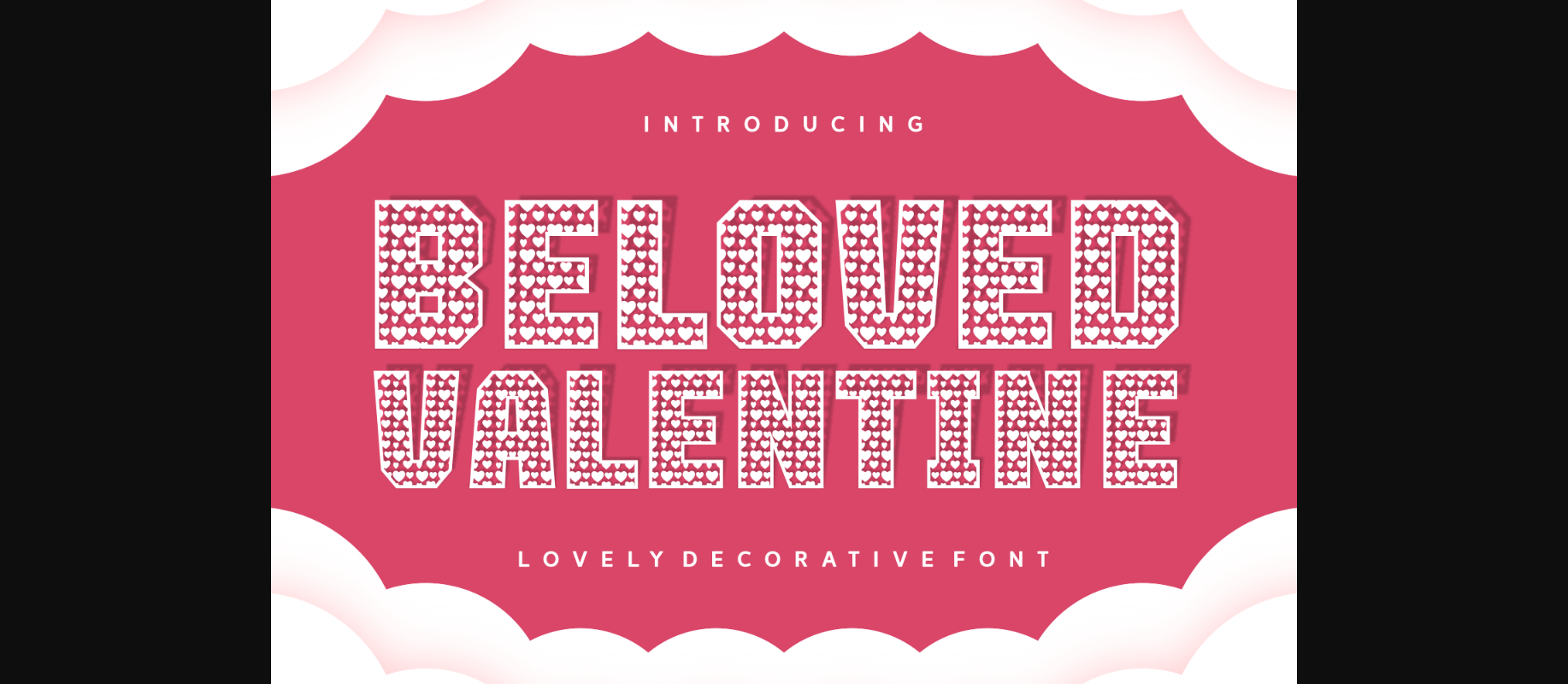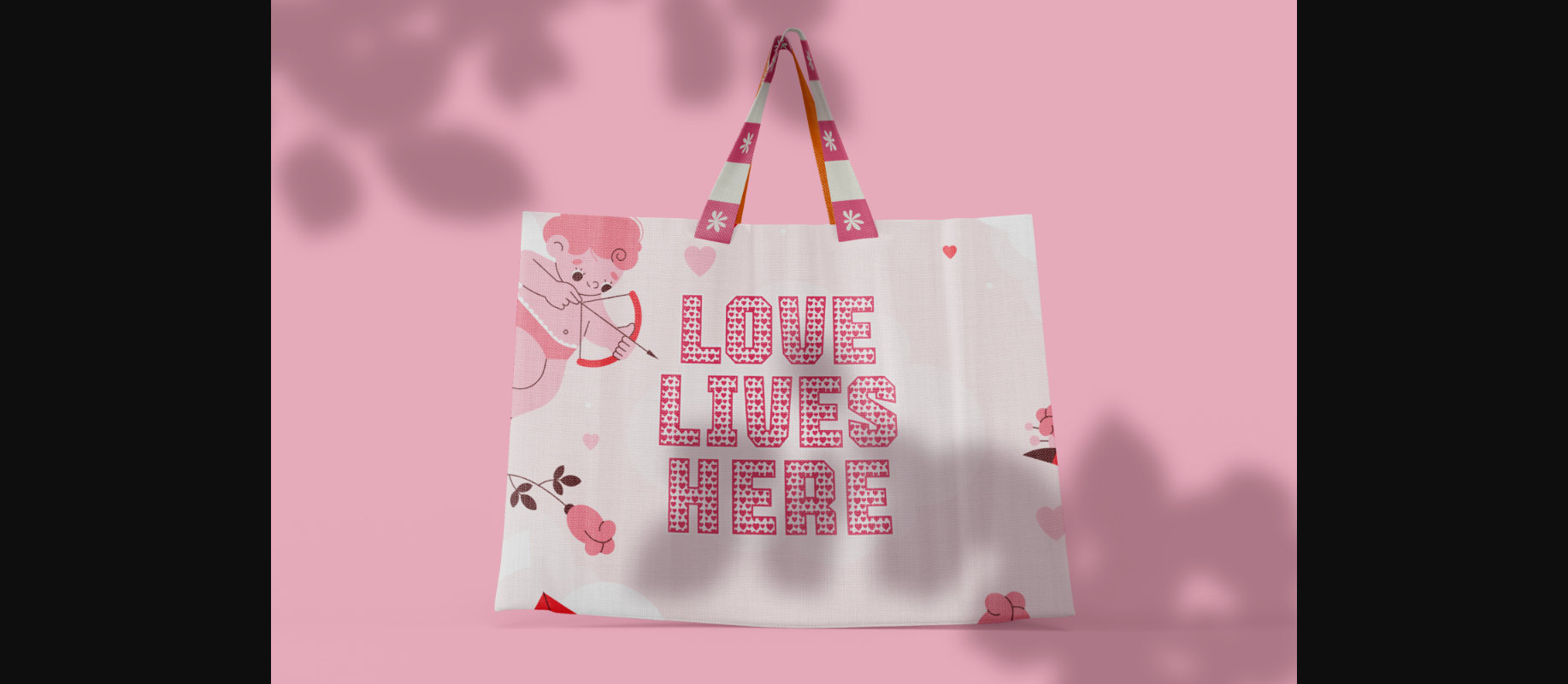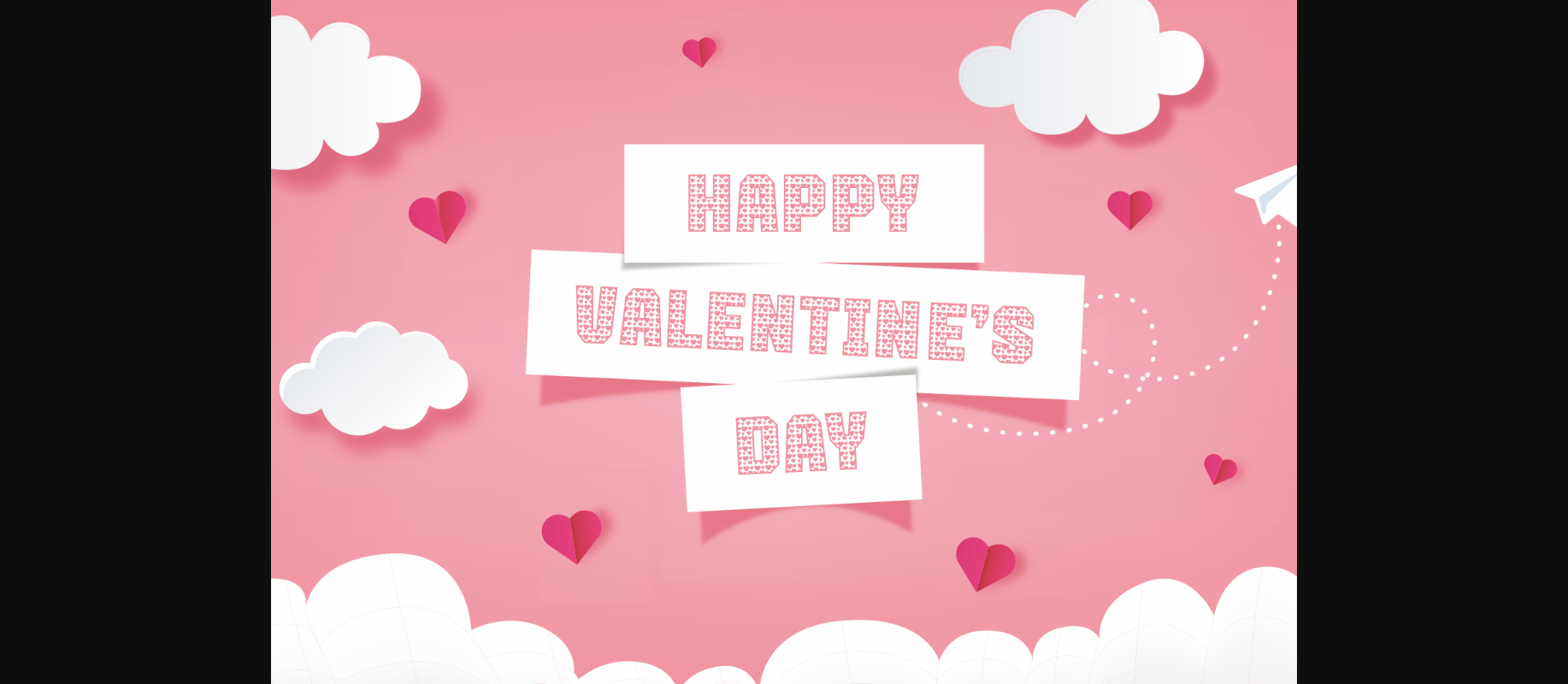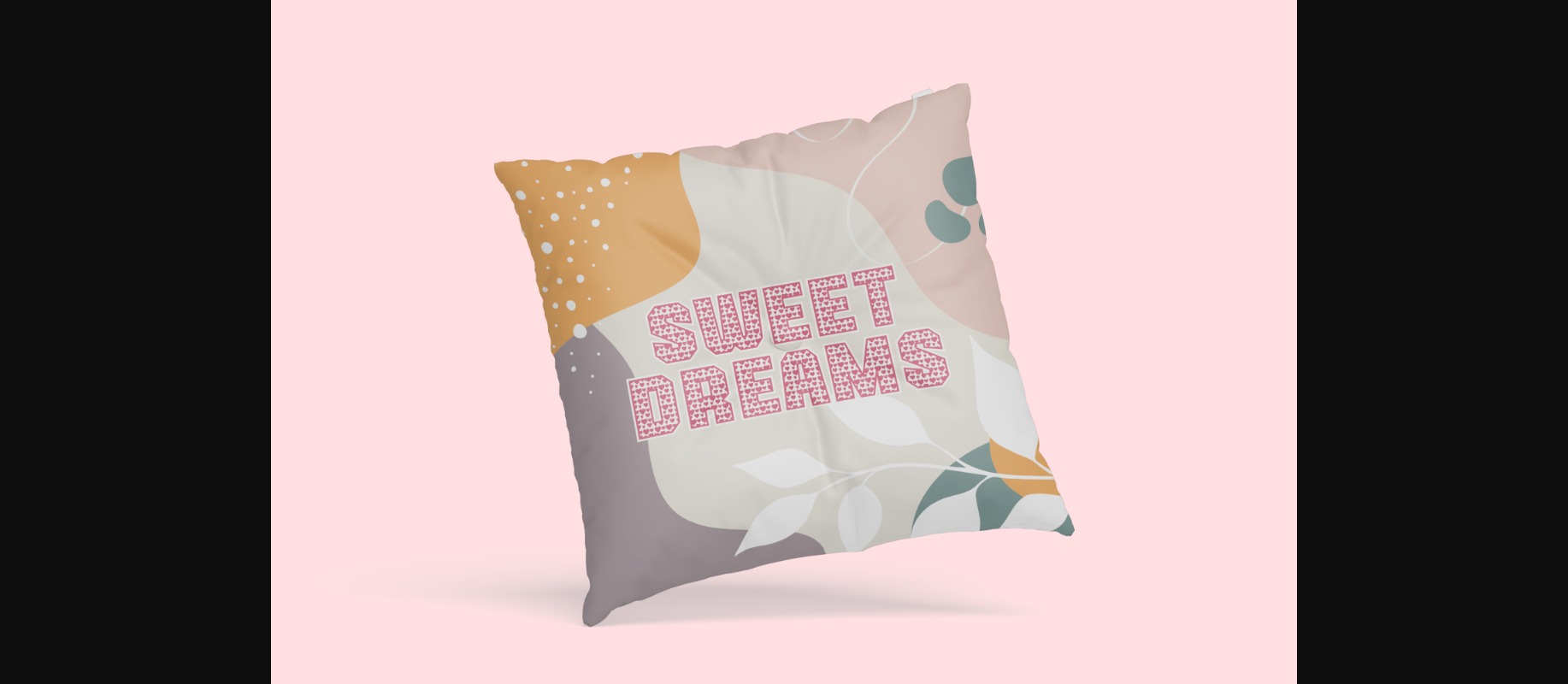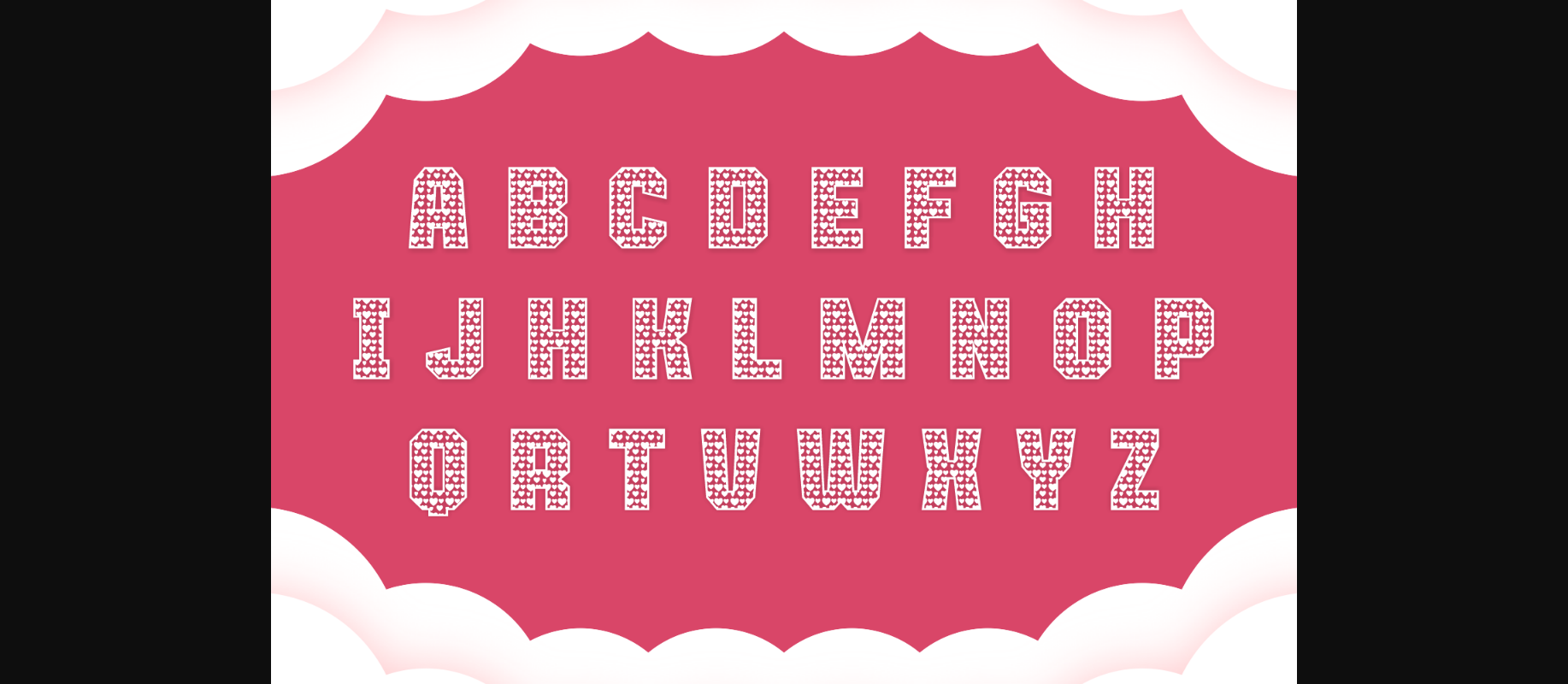
Beloved Valentine Font
About Beloved Valentine Font
Beloved Valentine is a sweet and charming display font designed to spread love in every letter. Adorned with delightful hearts, this decorative font adds a touch of romance to your projects. Perfect for Valentine’s Day cards, heartfelt messages, or any design that calls for a dash of love, Beloved Valentine brings warmth and playfulness to your text. Let your words embrace the spirit of love with this lovely font, making your designs heartfelt and memorable.